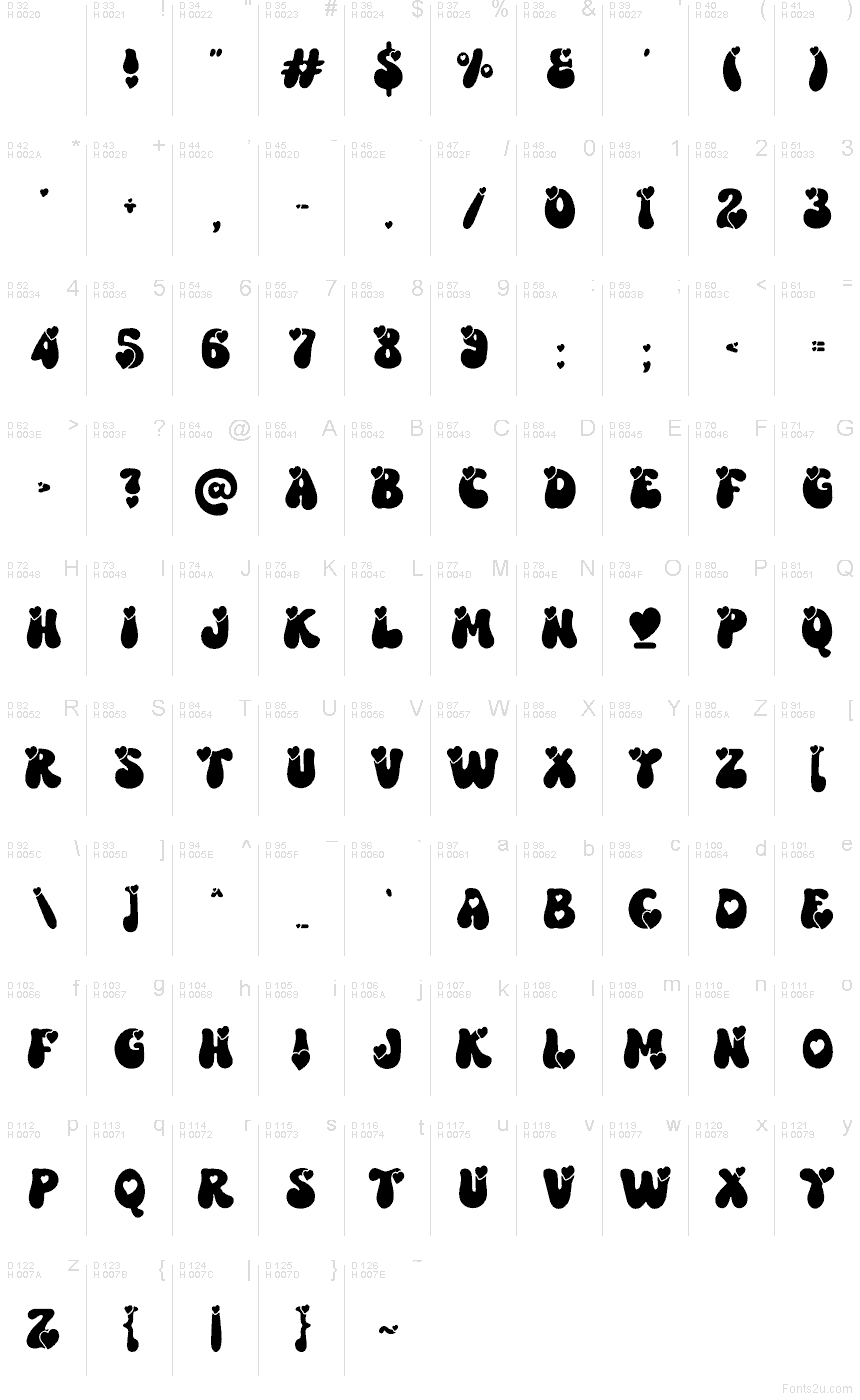
Retro Love font by Airotype is a free decorative Valentine typeface that turns every word into a love note. Bold, bubbly letters swell like inflated balloons, with hearts tucked into counters and nestled at the ends, giving the whole wordmark a candy-coated, 70s romantic feel. The chunky, inky shapes fill space with warmth, so even short phrases look full, playful, and ready-made for celebration.
Using Retro Love, your headlines instantly feel like a Valentine banner-no extra illustration needed. This free font shines on greeting cards, party invitations, couple logos, social media posts, stickers, and holiday merch. Set it large for maximum impact, then pair it with a simple, clean sans serif for body text to keep everything readable while Retro Love does the flirting on top.